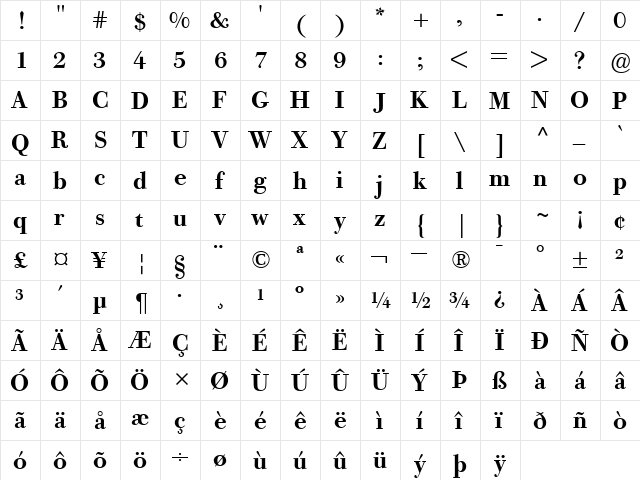
BodoniOldFaceBE-Medium Medium
BodoniOldFaceBE-Medium takes a measured approach to typography — its balanced proportions and neutral character make it a reliable workhorse for both digital and print work.